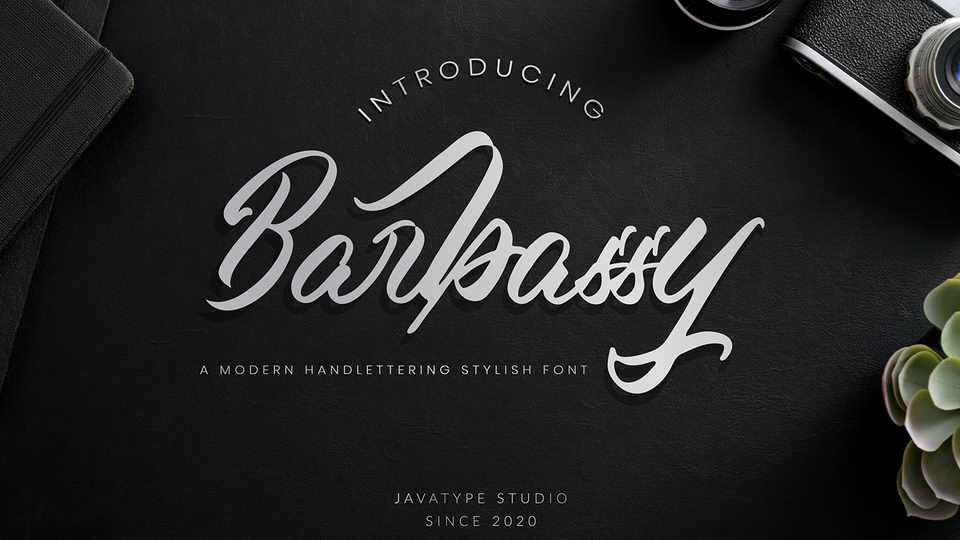
Download Barbassy font, a modern hand lettering script. Barbassy is made by handwriting directly using a brush pen so that it can produce fonts that have character and artistic.
Designer: Javatype Studio